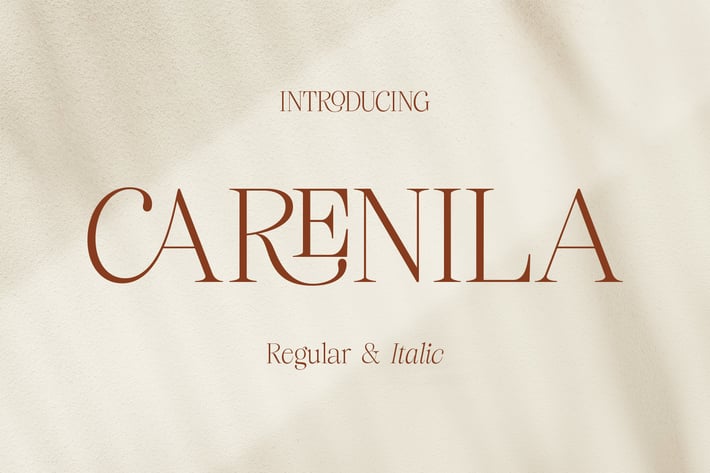
Carenila Serif Font
Carenila is a stylish serif font, this font available in regular and italic. You can use this font for branding, graphic design editorial, etc.
- Stylistics and ligatures
- Multilingual